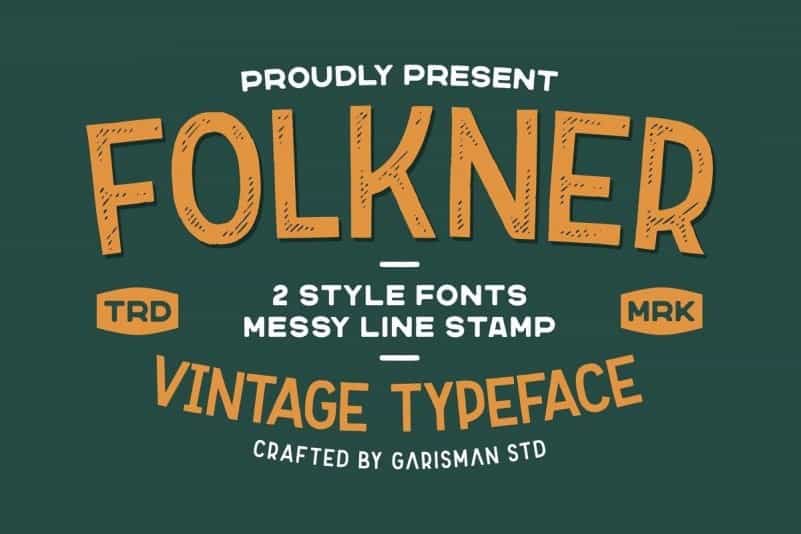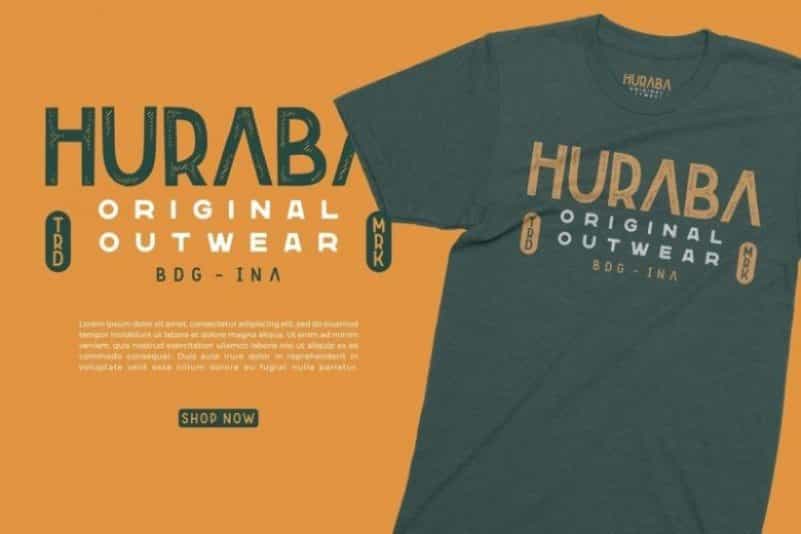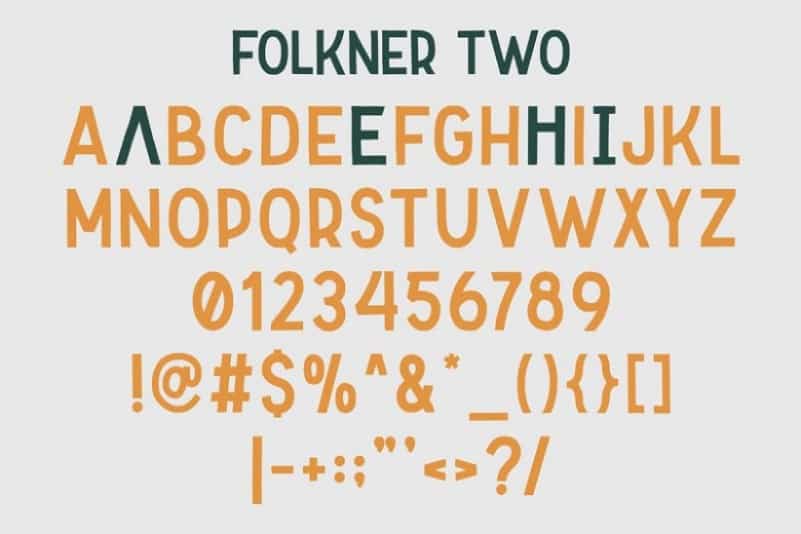
Folkner emerged from the Pioneer era. This font looks vintage, classic, old-fashioned, an old man and it is made by hand. All nostalgic traces of line stamps remain on Folkner Two giving it an old-time feel. Plus, it’s been PUA Encoded. Ready for folks looking for a retro feel in their words or logo. It works best in any design, any project, branding material, t-shirts, print, business cards, logo, poster, photography , t-shirt, quotes of a for example.